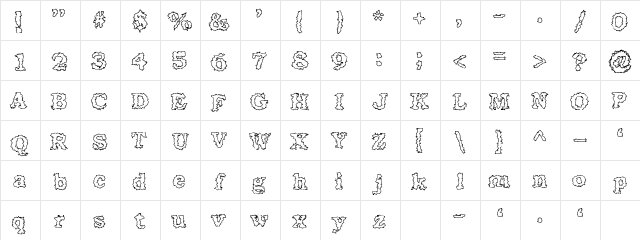
Seismacrap Regular
Design Context for Seismacrap Typeface
Seismacrap is a composed and adaptable typeface that performs quietly and consistently across a wide range of design contexts.